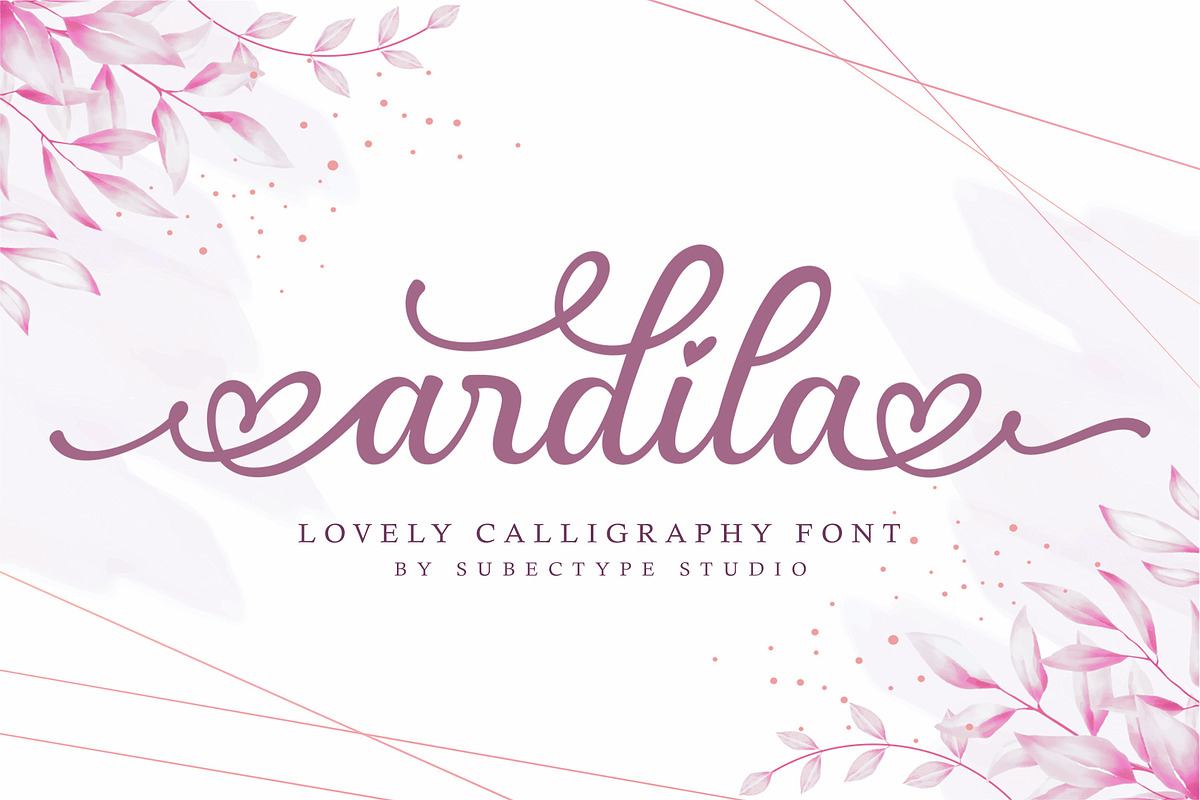
Ardila / Lovely Calligraphy Font Free Download
Ardila Lovely Calligraphy Font Free Download
Infuse your designs with romance and elegance using Ardila Lovely Calligraphy Font Free Download. This exquisite script font features flowing curves and whimsical heart-shaped swashes, making it perfect for wedding invitations, love letters, branding, and projects that require a personal, heartfelt touch. Ardila's graceful letterforms and decorative elements add a sophisticated charm to any creation. Download it for free to explore its features in personal projects. For commercial use, please ensure you purchase the appropriate license. Elevate your typography with the enchanting Ardila Lovely Calligraphy Font Free Download